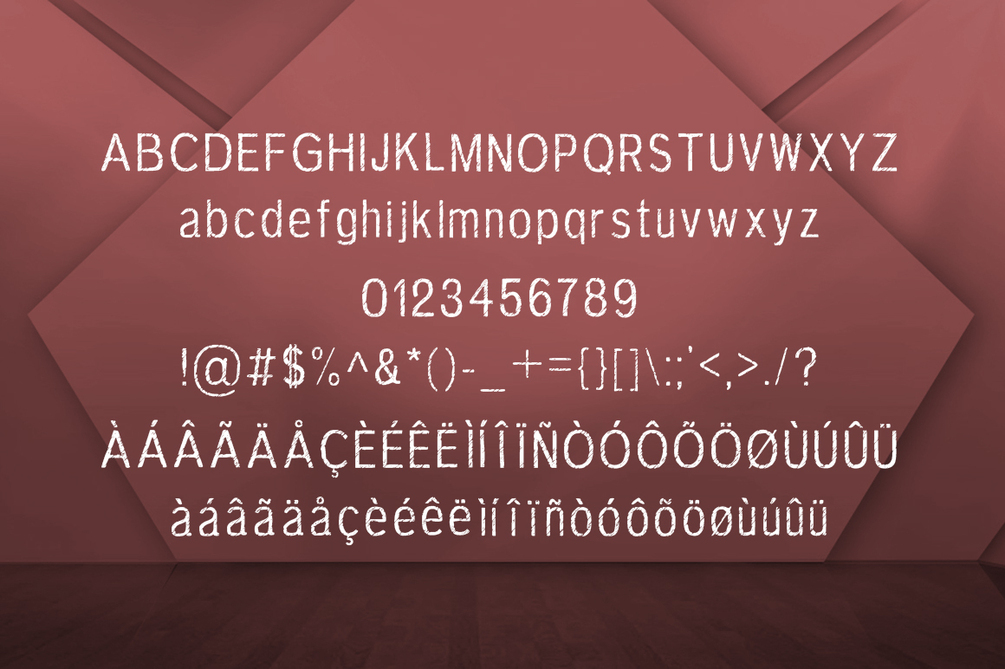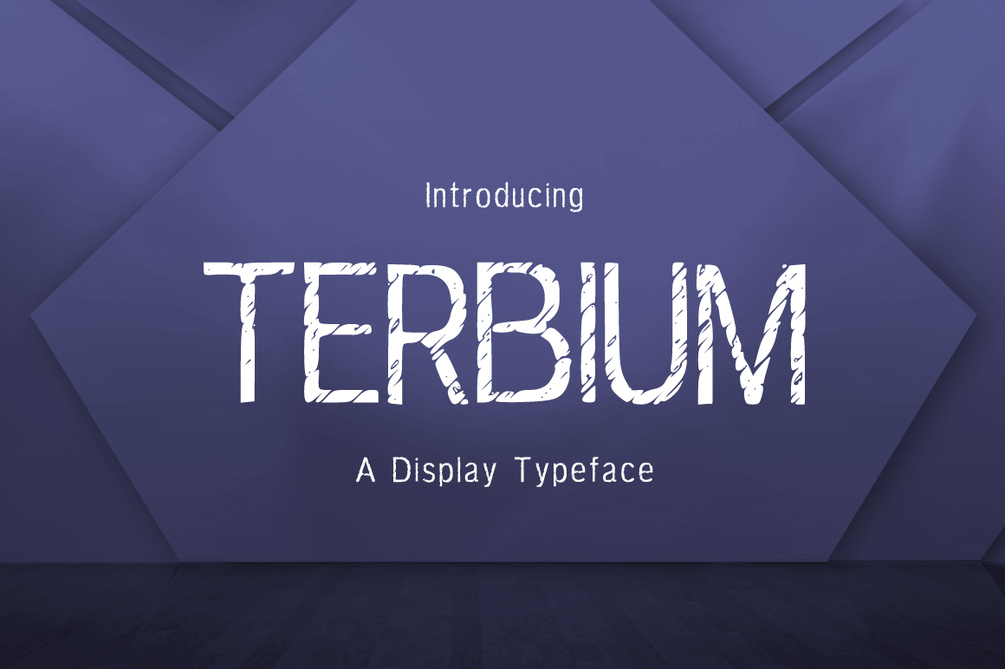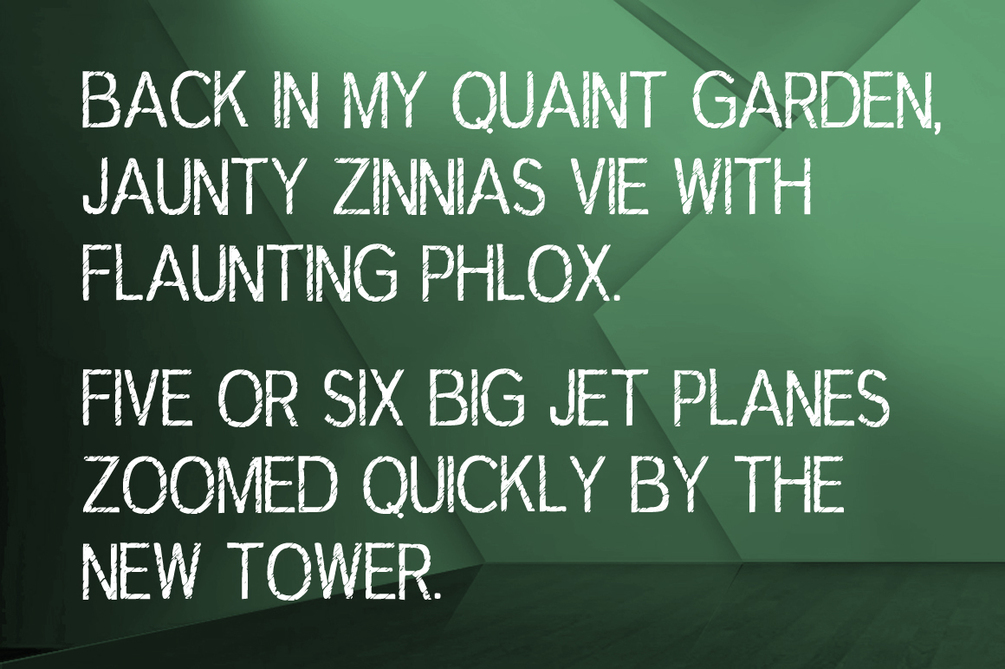
Terbium
Terbium is a brand new modern font. Terbium is perfectly suited to stationery, logos, t-shirt, paper, print design, website header, photo frame, flyer, music cover, poster, image slider and much more.
Features:
Uppercase
Lowercase
Numerals
Punctuation
Includes a range of multilingual support